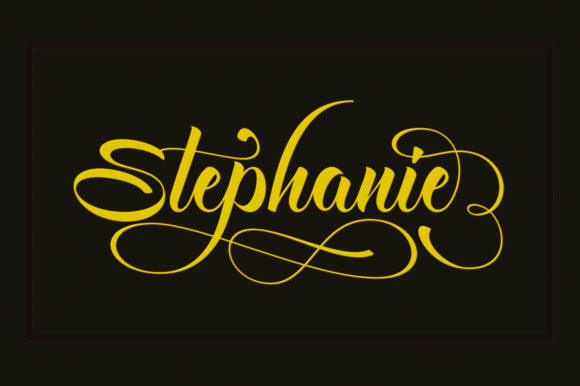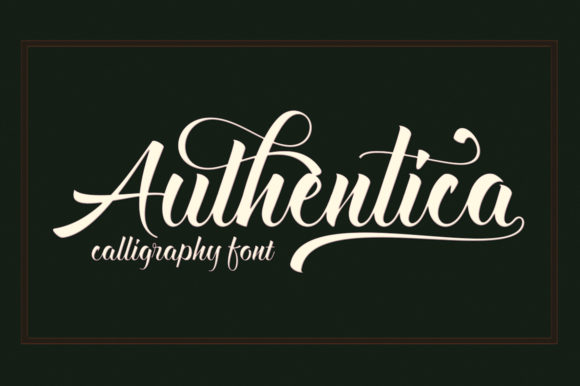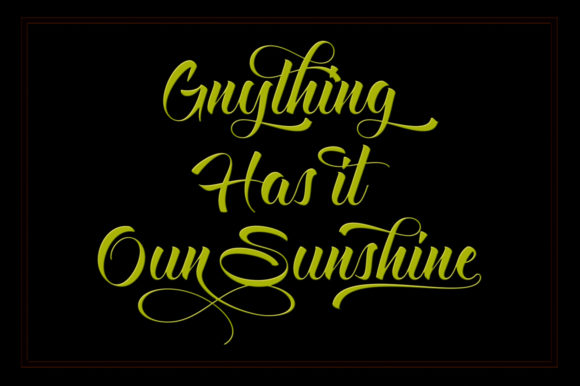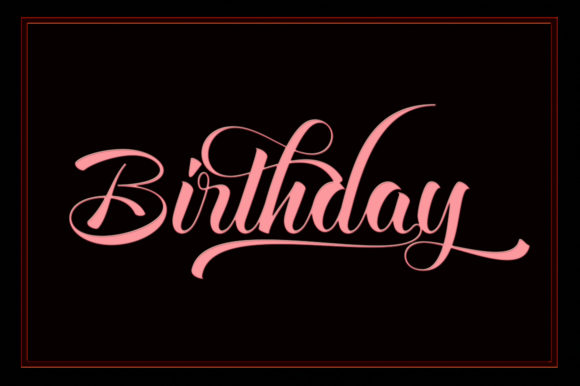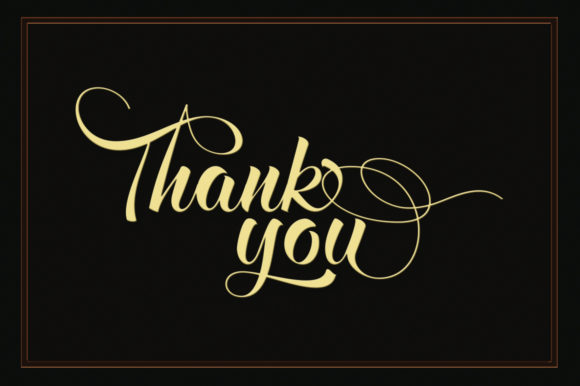
Ghymkama Font: Elevate Your Designs with Elegance
Are you on the hunt for a font that exudes sophistication and poise? Look no further than Ghymkama, a stunning new font that’s perfect for formal occasions. With its wide kerning and elegant design, Ghymkama is sure to elevate your designs and leave a lasting impression.
The Story Behind Ghymkama
Ghymkama is a carefully crafted font that’s designed to make a statement. Its creator, [Font Creator’s Name], aimed to create a font that’s both beautiful and functional. The result is a font that’s not only aesthetically pleasing but also highly legible, making it perfect for a wide range of applications.
What Makes Ghymkama Special?
So, what sets Ghymkama apart from other fonts? Here are a few key features that make it stand out:
- Wide Kerning: Ghymkama boasts wide kerning, which means that the letters have a generous amount of space between them. This makes the font feel more elegant and sophisticated, perfect for formal designs.
- Elegant Design: The font’s design is sleek and refined, with smooth lines and curves that give it a luxurious feel.
- High Legibility: Despite its elegant design, Ghymkama is highly legible, even at small font sizes. This makes it perfect for use in a variety of applications, from headings and titles to body text.
Perfect for Formal Occasions
Ghymkama is specifically designed for formal occasions, making it perfect for:
- Wedding Invitations: Add a touch of elegance to your wedding invitations with Ghymkama.
- Business Cards: Make a professional impression with Ghymkama, perfect for business cards and corporate designs.
- Formal Events: Whether it’s a gala, a formal dinner, or a special ceremony, Ghymkama is the perfect font to use for your event designs.
Tips for Using Ghymkama
Here are a few tips for getting the most out of Ghymkama:
- Use it as a Headline Font: Ghymkama is perfect for use as a headline font, where its elegant design can really shine.
- Pair it with a Sans-Serif Font: For body text, consider pairing Ghymkama with a sans-serif font to create a nice contrast.
- Experiment with Font Sizes: Don’t be afraid to experiment with different font sizes to find the perfect balance for your design.
In conclusion, Ghymkama is a stunning new font that’s perfect for formal occasions. With its wide kerning, elegant design, and high legibility, it’s sure to elevate your designs and leave a lasting impression. Whether you’re a designer, craft, or simply someone who appreciates beautiful typography, Ghymkama is definitely worth checking out.